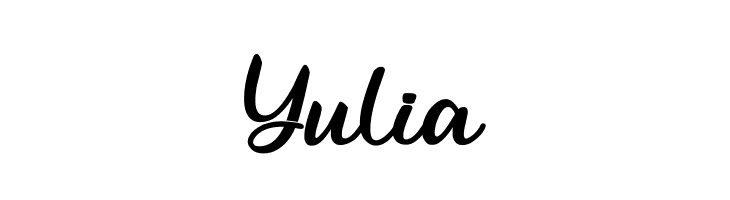
A flowing, cursive script with a handwritten aesthetic.
A lively and energetic handwritten font with fluid strokes and playful curves.
A playful and elegant script font with decorative swirls and a handwritten touch.